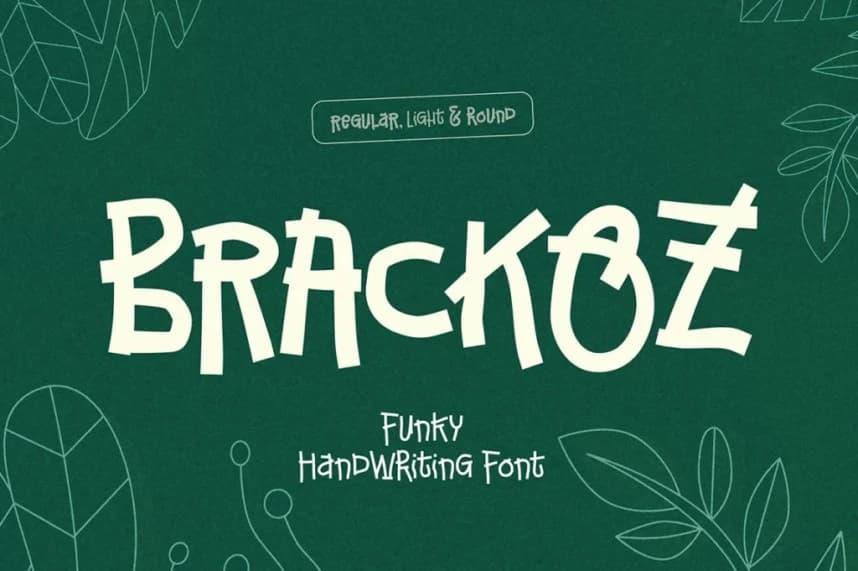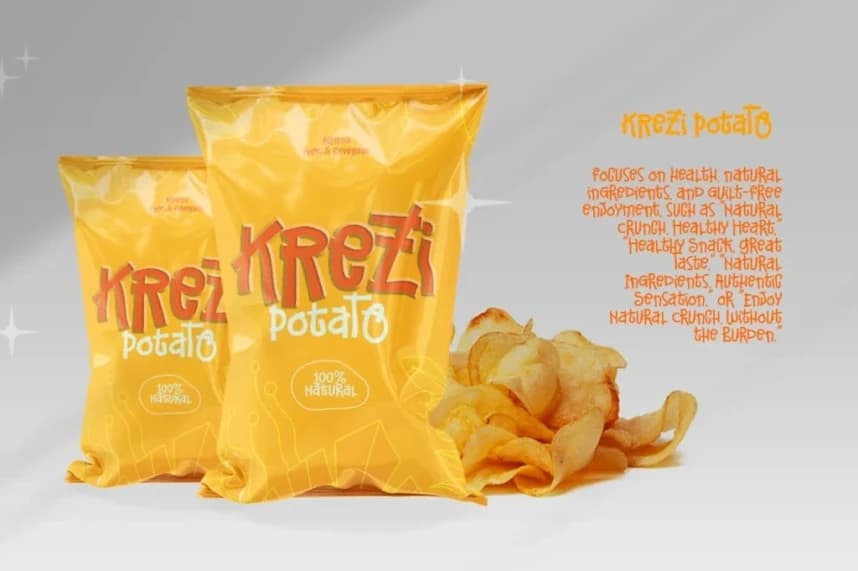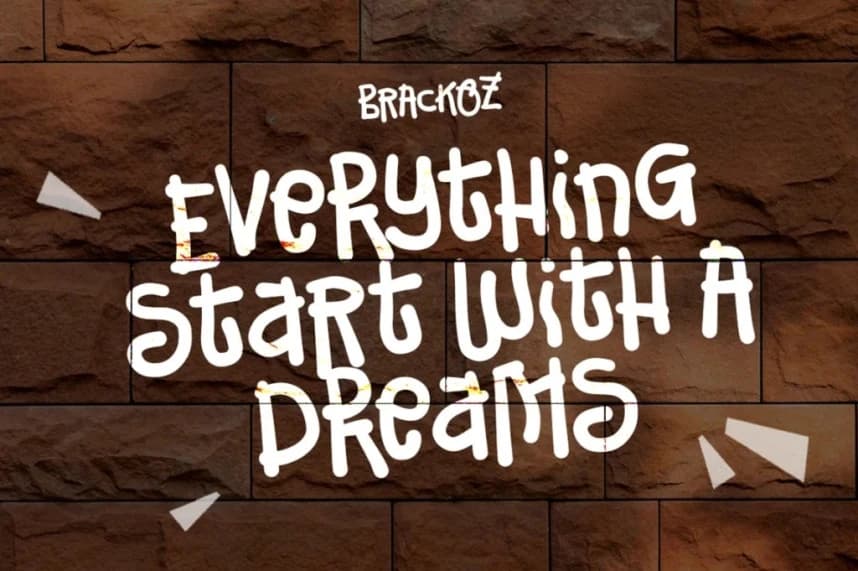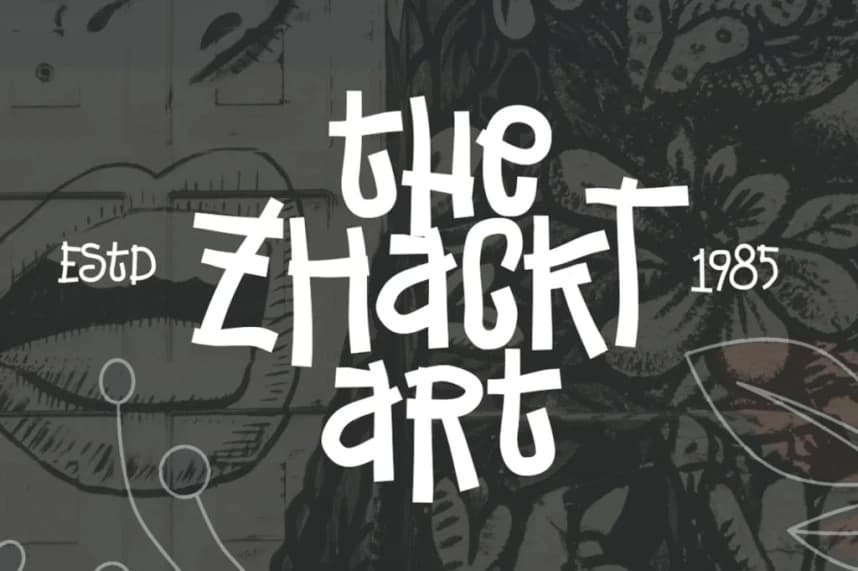
Brackoz Funky Font
Brackoz Funky Font is a unique Handwritten display font with a funky, modern character that instantly stands out. Designed to be bold and expressive, Brackoz brings a playful yet contemporary feel to any design.